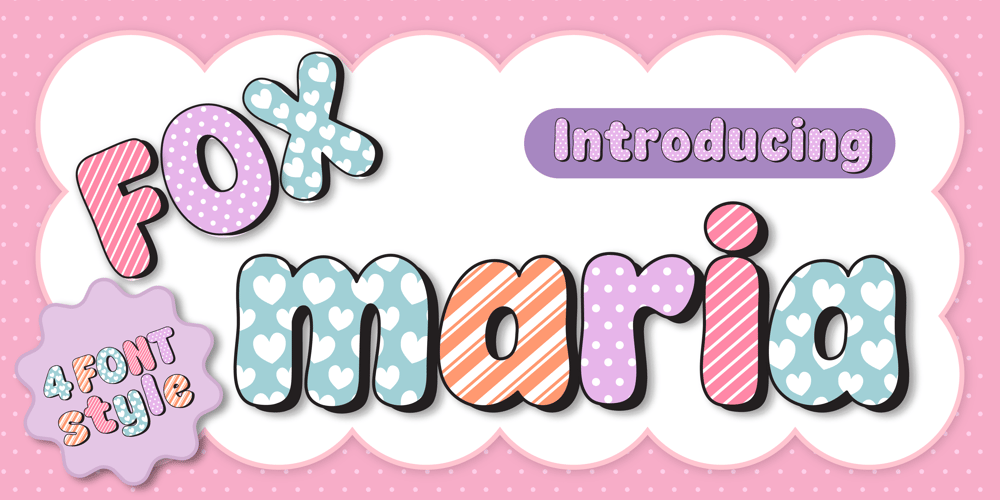
Fox Maria
Fox Maria font
Fox Maria Font Family was designed by Rattana Rattanawan and published by Fox7. Fox Maria contains 4 styles and family package options. Fox Maria is a playful and charming color font that brings your designs to life! Perfect for creative projects, this font offers four unique variations, each with its own vibrant personality: Fox Maria Blue: A refreshing blue theme adorned with cute heart patterns, perfect for cheerful and romantic designs. Fox Maria Orange: A bright orange style with dynamic diagonal stripes, adding energy and warmth to any project. Fox Maria Pink: A sweet pink design featuring diagonal stripes, ideal for creating fun and feminine visuals. Fox Maria Purple: A soft purple variant with delightful polka dots, exuding elegance and whimsy. Whether you’re designing for children’s projects, invitations, or playful branding, Fox Maria will make your text stand out with its colorful and lively appearance.Learn more about color font support on third-party apps here: https://www.colorfonts.wtf/🌸 Please note that the Canva do not support color fonts! 🌸